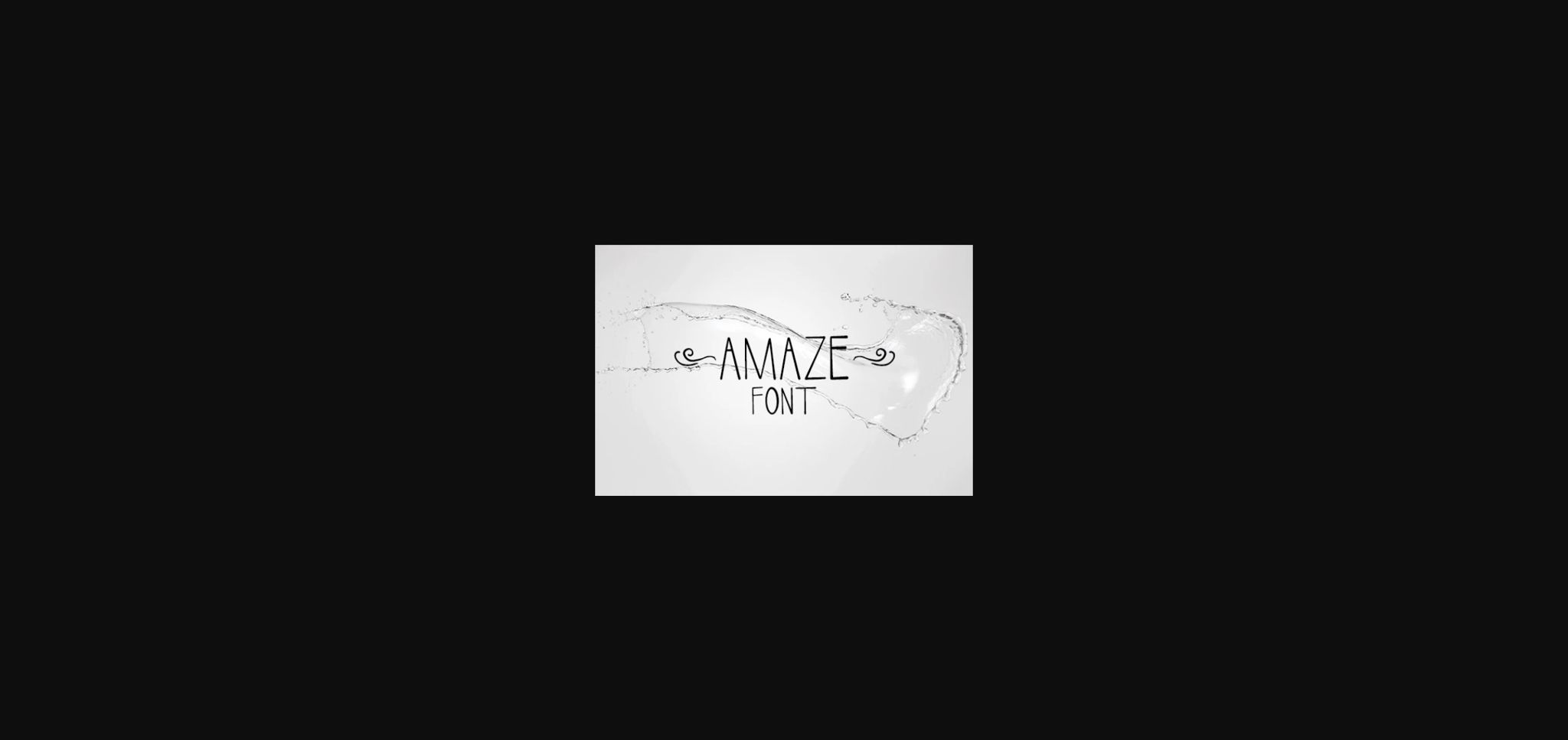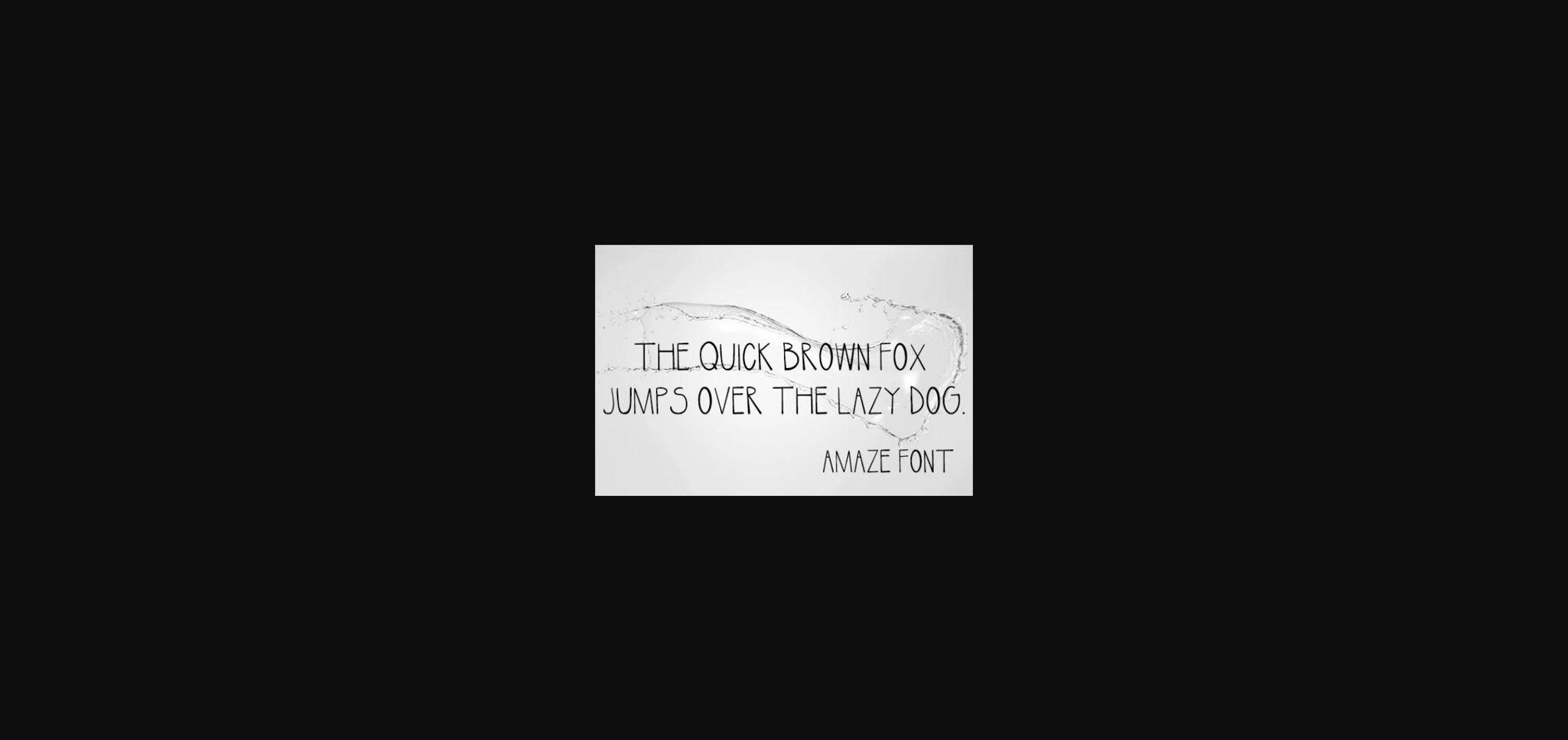
Amaze Font
About Amaze Font
Amaze is a lovely sans serif font, carefully handcrafted to become a true favorite. Its casual charm makes it appear wonderfully down-to-earth, readable and, ultimately, incredibly versatile. This font will look outstanding in any context, whether it’s being used on busy backgrounds or as a standalone headline!